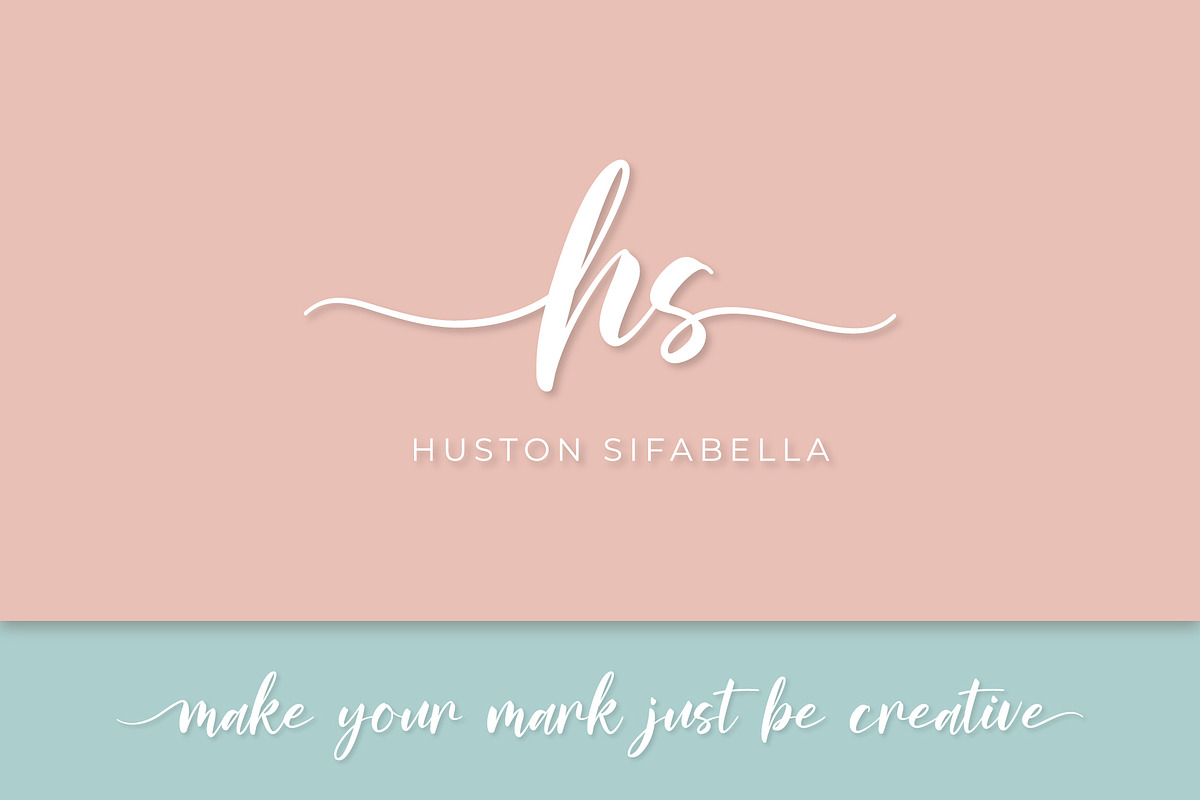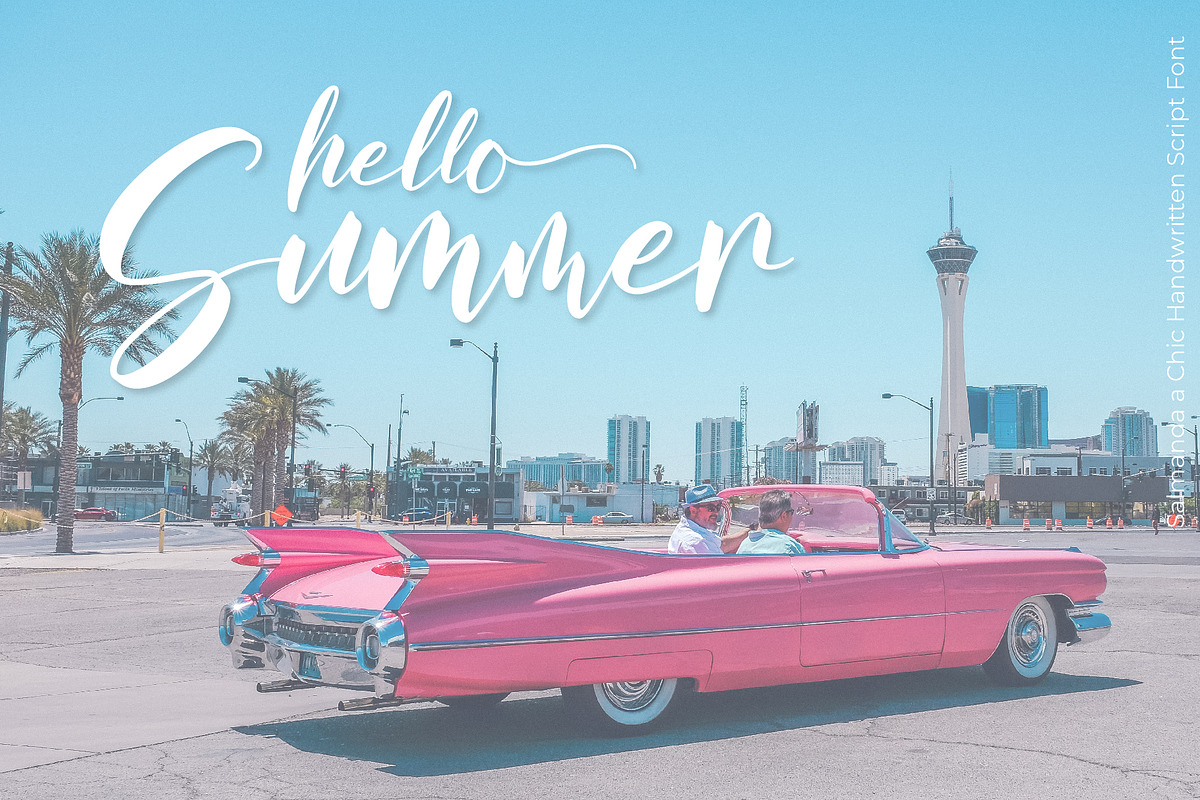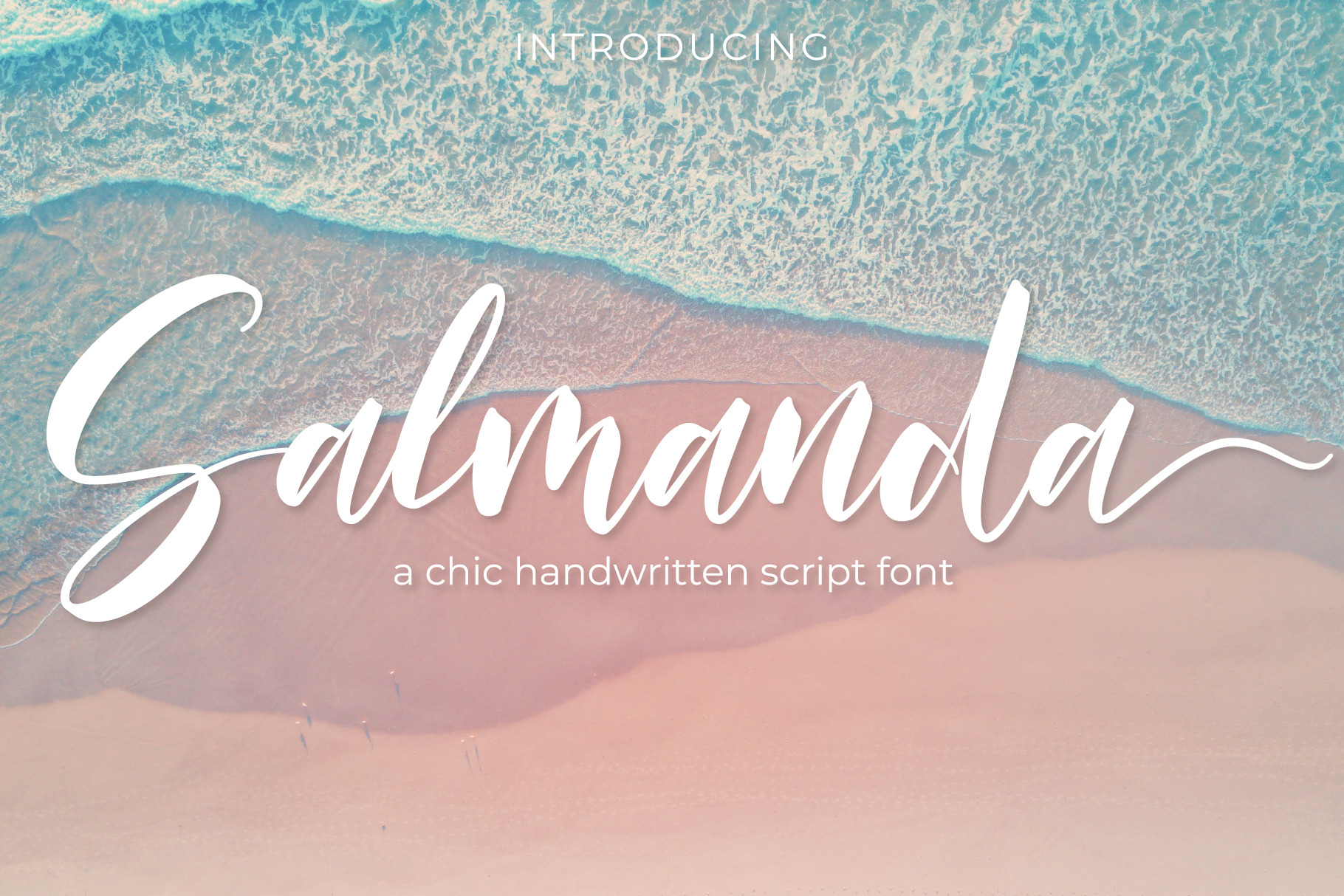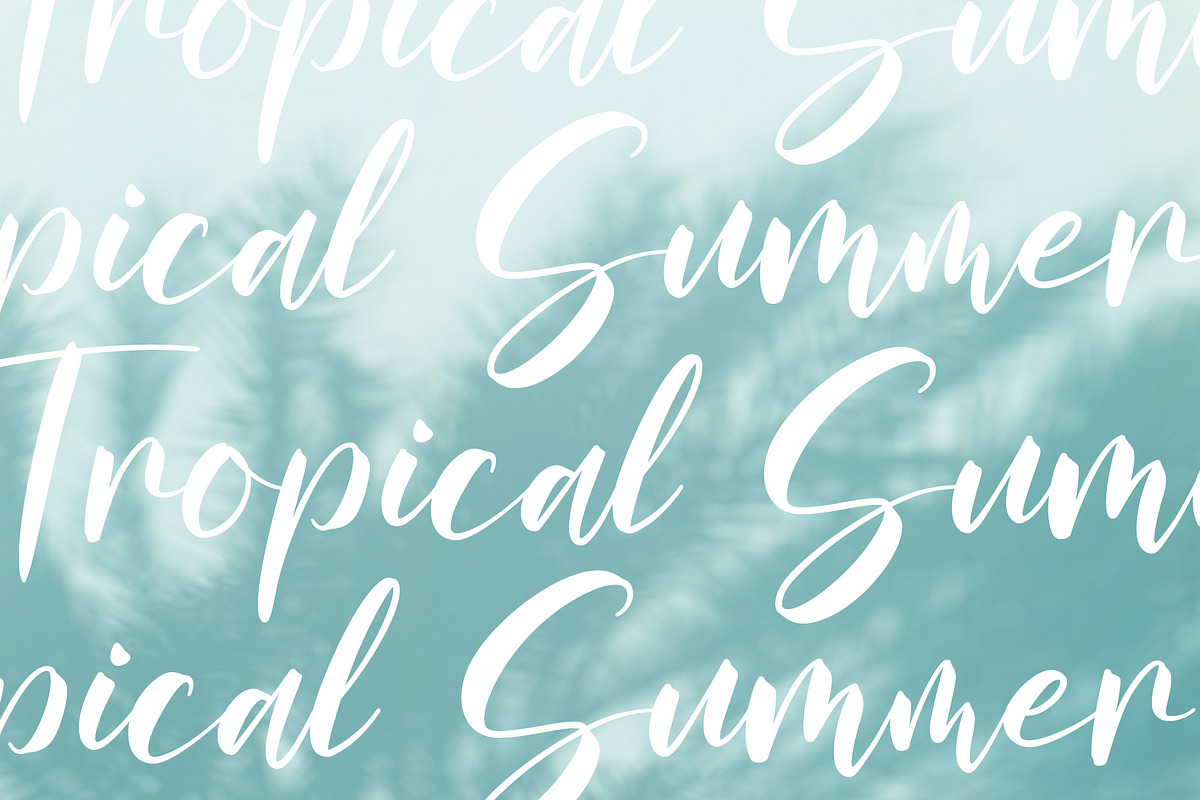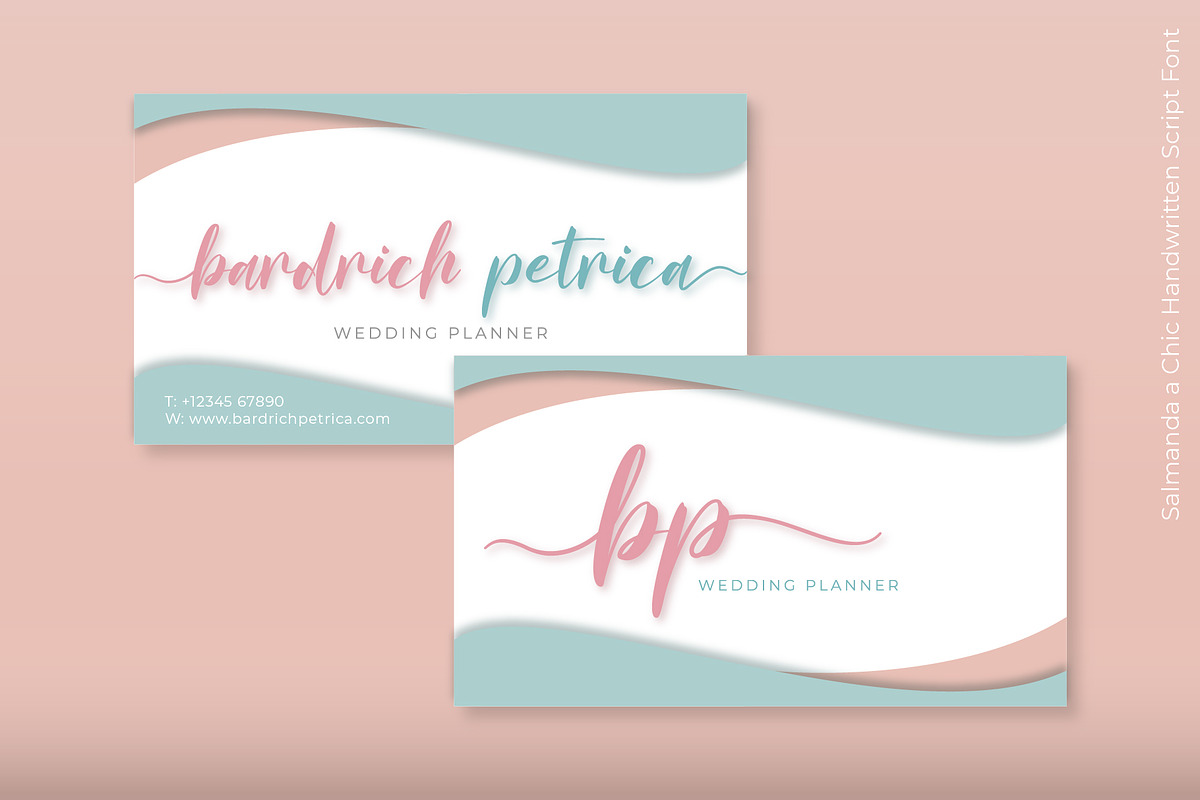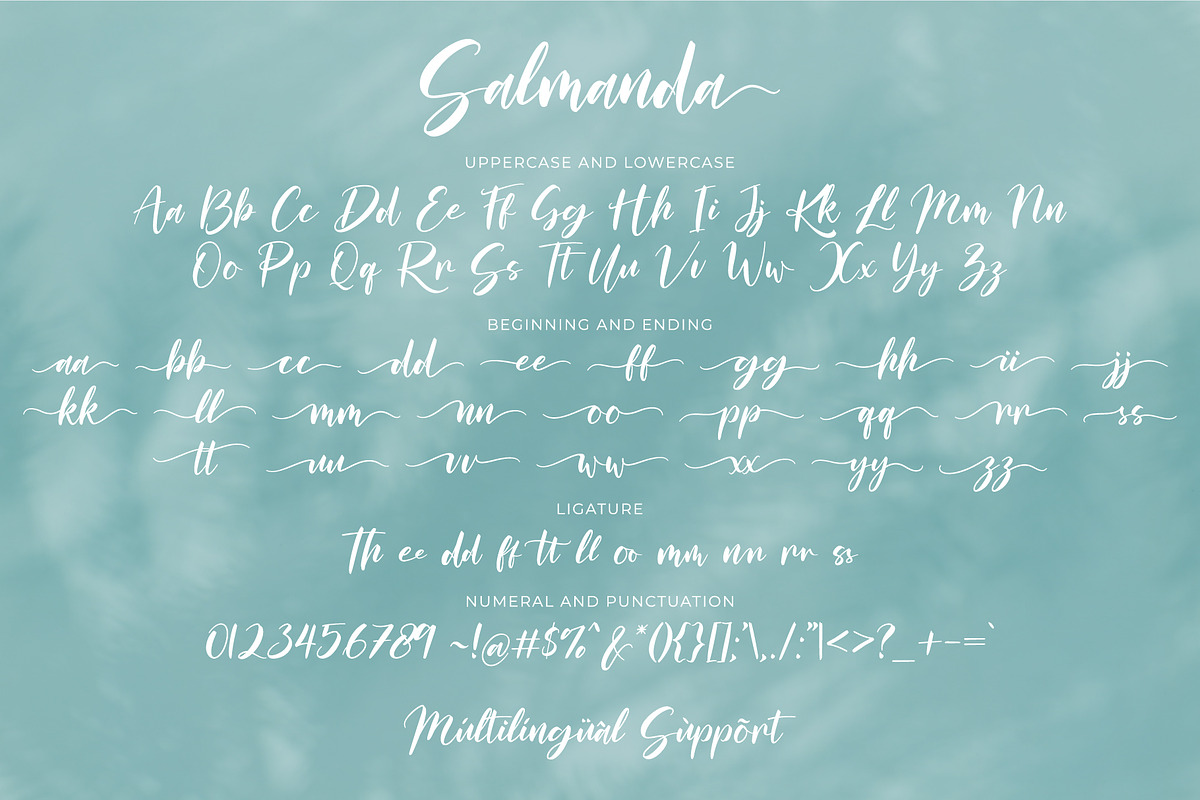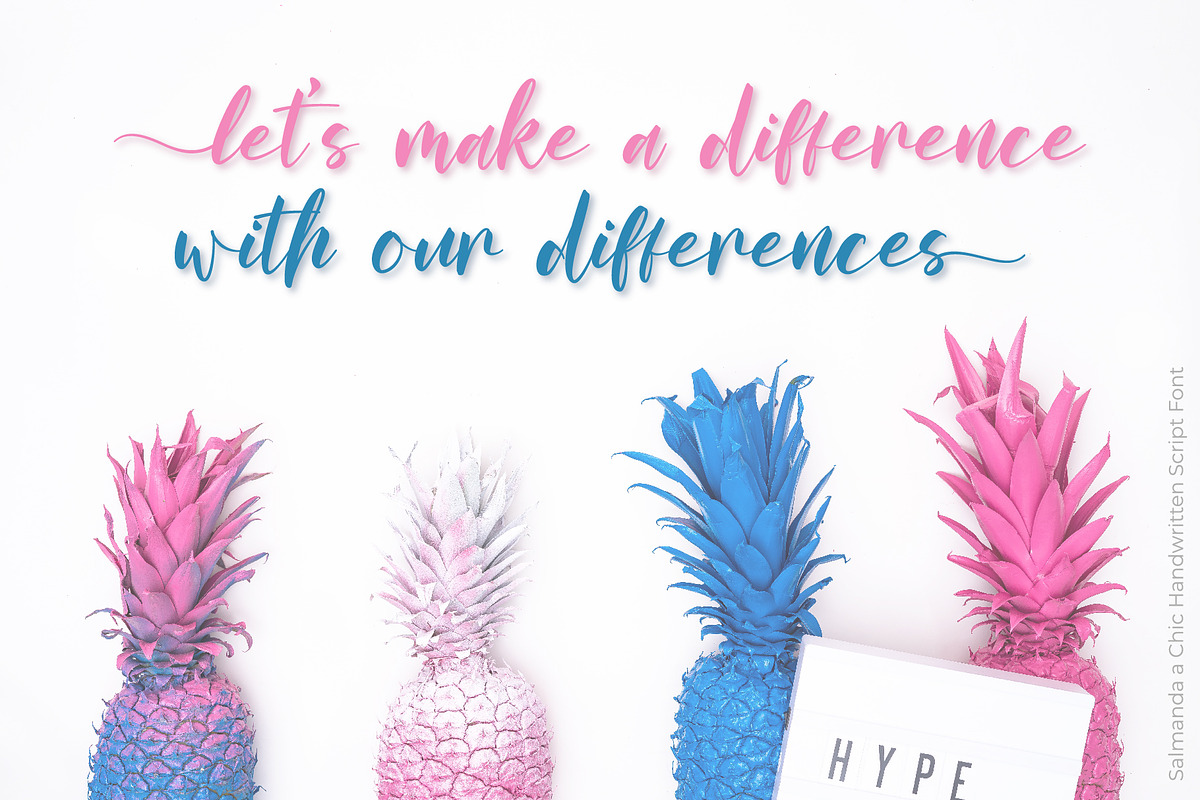
Salmanda - a handwritten script font
Thanks for checking out Salmanda Script! A fabulously fun yet elegant script font with tons of energy, allowing you to create beautiful hand-made typography in an instant. With swash in the beginning and ending, Salmanda Script is guaranteed to make your text stand out - perfect for logos, printed quotes, invitations, cards, product packaging, headers and whatever your imagination holds.
Salmanda includes uppercase and lowercase letters, numerals, a large range of punctuation as well as multilingual support and ligatures. All lowercase letters include beginning and ending swashes, that makes the font look fabulous!